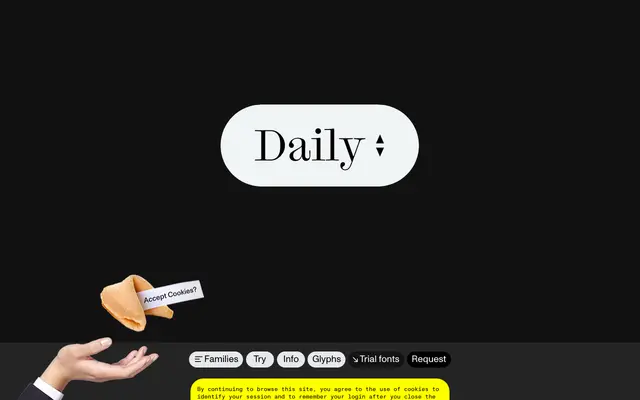
ABC Daily
A serif family built around two sibling branches, Scotch and Slab, designed to substitute for one another in the same way a designer might switch between roman and italic.
ABC Daily pairs a high-contrast Scotch serif with a squared Slab counterpart, both drawn to identical proportions, cap heights and x-heights so they can be mixed freely within a layout. The contrast between the two can read as quiet harmony or deliberate tension depending on how they are combined. Each branch comes in six weights with italics, plus monospaced variants, and the family includes Latin Extended and Greek coverage alongside a variable font axis.
The family splits into Scotch and Slab siblings sharing the same skeleton and proportions, placing it across two serif traditions; the Scotch branch aligns with high-contrast modulated serifs while the Slab branch uses squared, unbracketed serifs throughout.